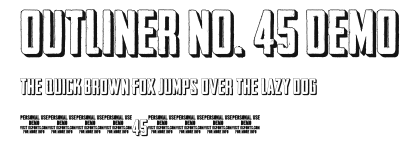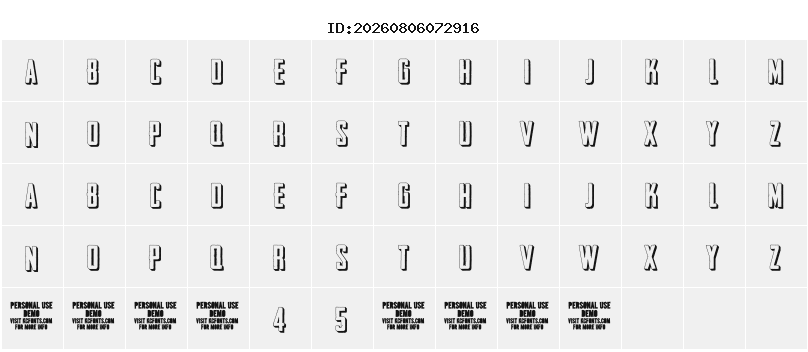
• Font Name: Outliner No. 45 DEMO
• Designer: Kevin Christopher
About Outliner No. 45 DEMO.ttf
Outliner No. 45 DEMO.ttf is a modern, elegant sans-serif font designed for ultimate readability and visual harmony. Perfect for branding, headlines, web design, and print materials.